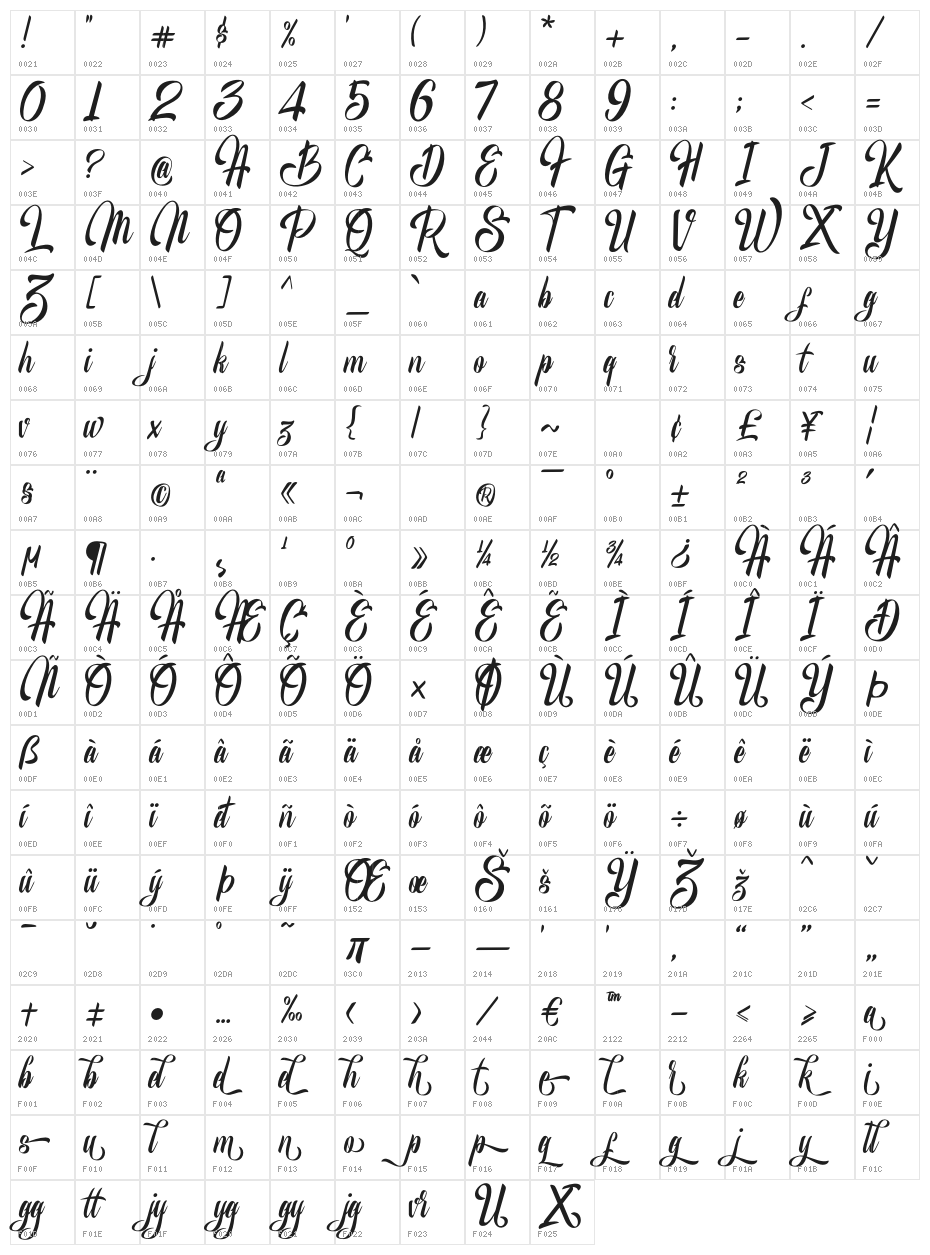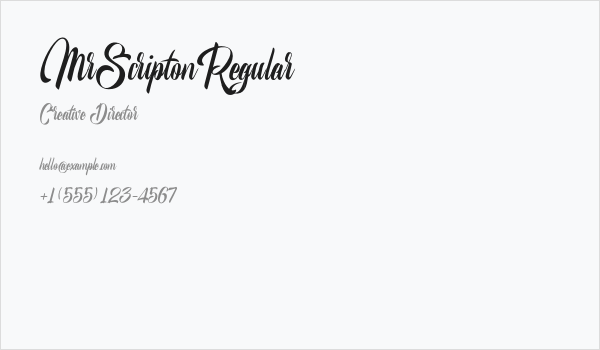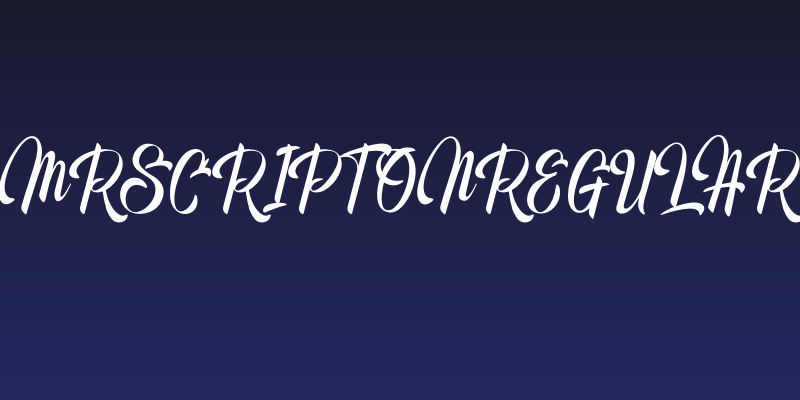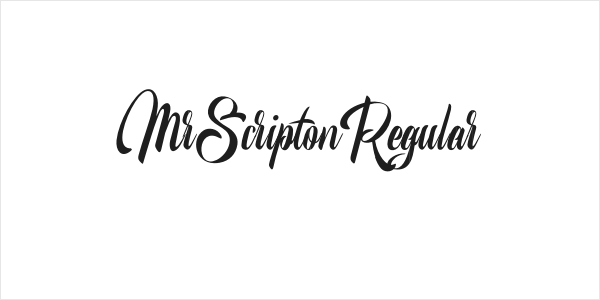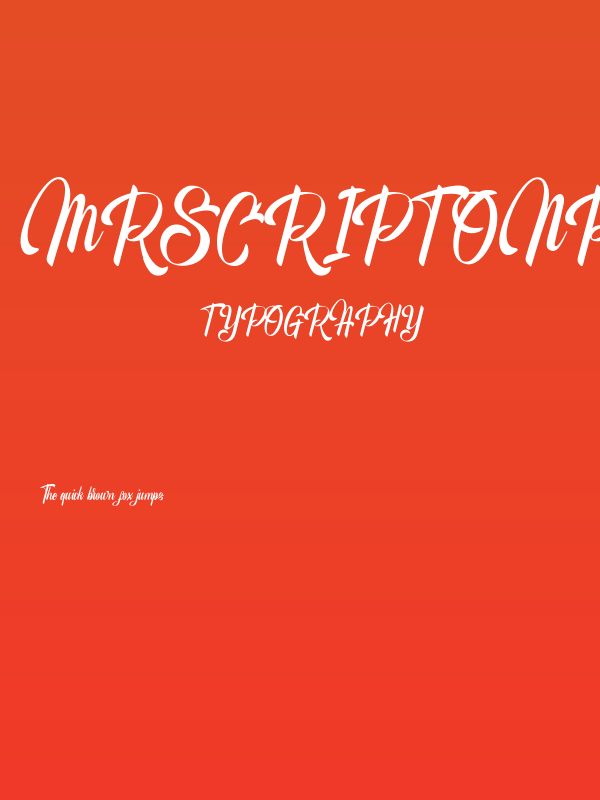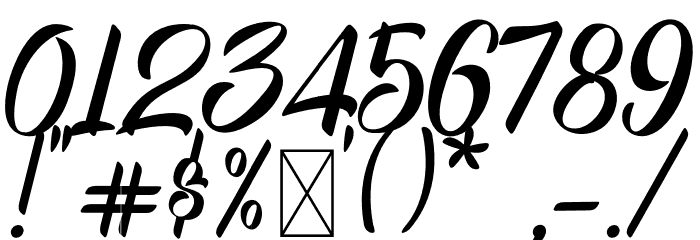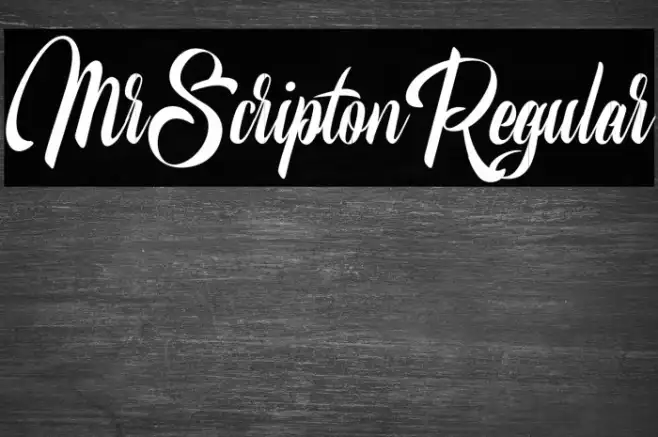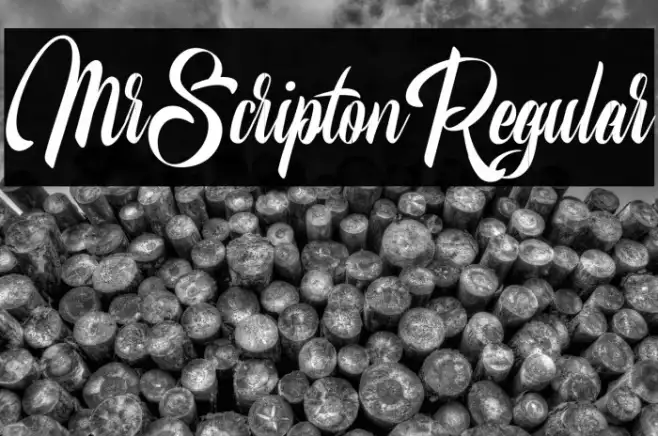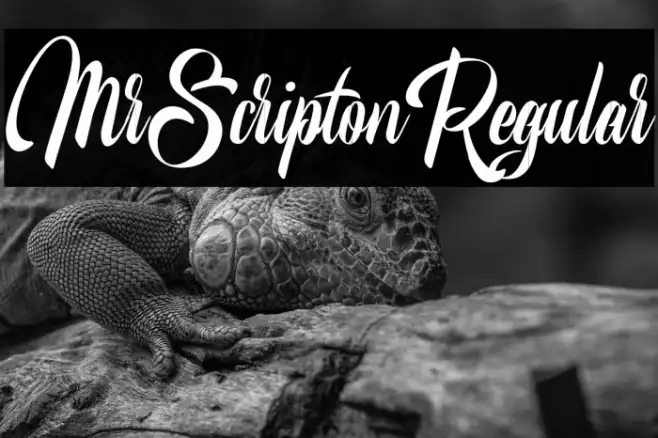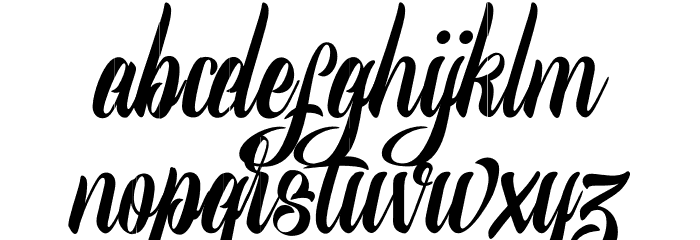
MrScriptonRegular Font
MrScriptonRegular Description
This font features a flowing, cursive style that exudes elegance and sophistication. The characters are connected with smooth, sweeping strokes, giving it a handwritten appearance. The uppercase letters are bold and prominent, while the lowercase letters maintain a consistent flow, enhancing readability. The numerals and special characters are designed with the same fluidity, ensuring a cohesive look across all text. This font is ideal for projects that require a touch of class and personal flair, such as invitations, greeting cards, and branding materials.
| Font Family | Mr Scripton |
| Proposed Projects | Ideal for wedding invitations, greeting cards, branding, and elegant signage. |